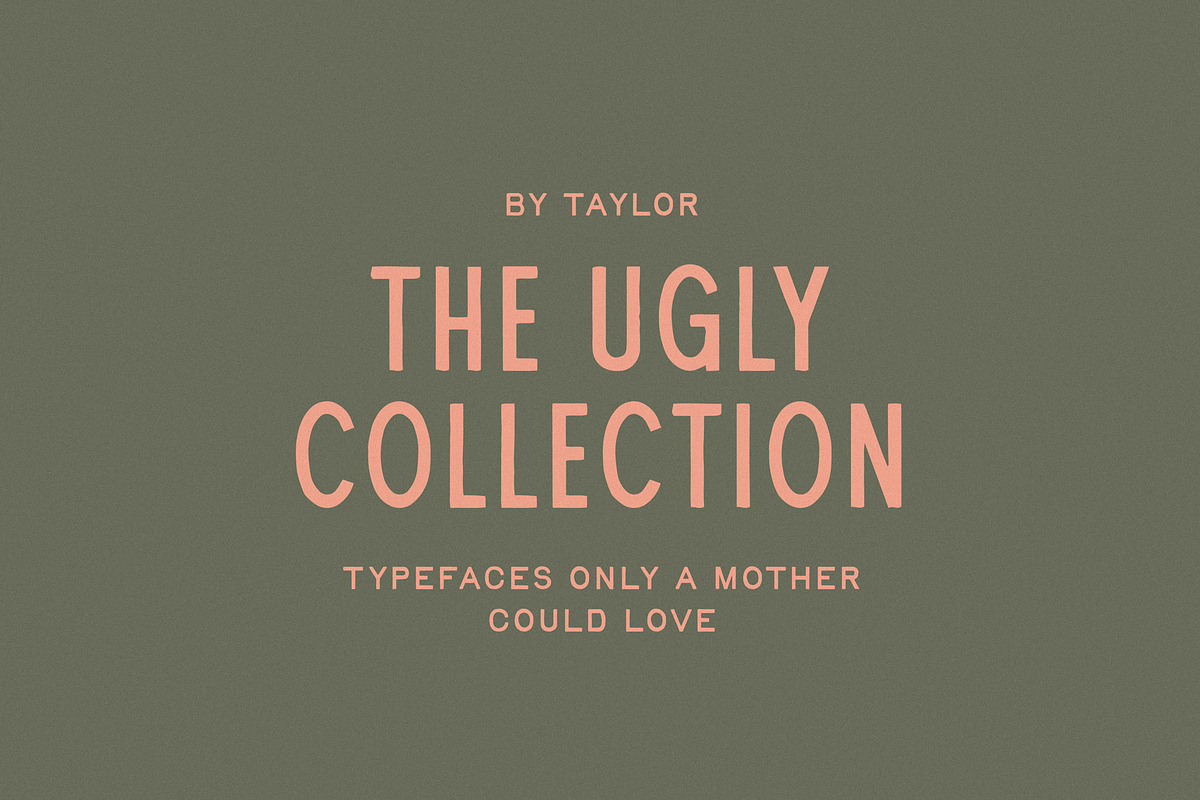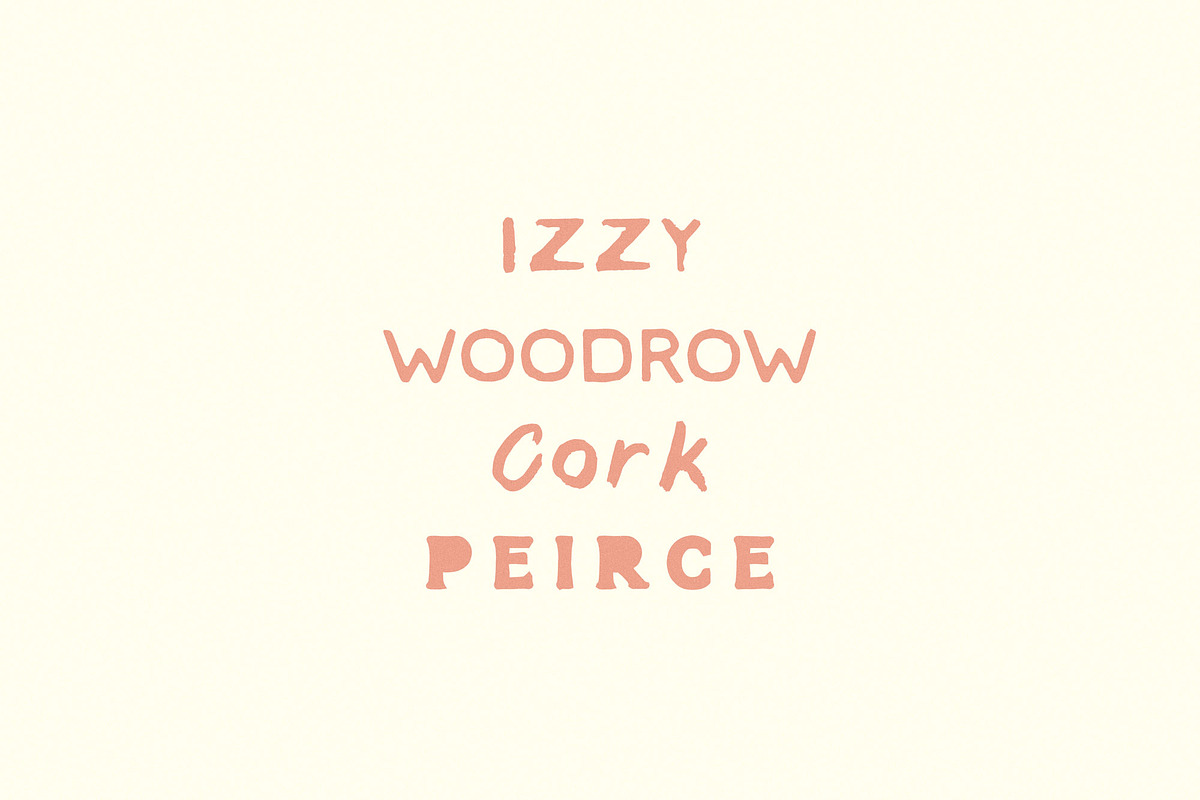
The Ugly Collection
The fonts that I’m least proud of, you can now proudly own yourself. Comes with 4 handmade fonts -- Izzy, Woodrow, Cork and Peirce.